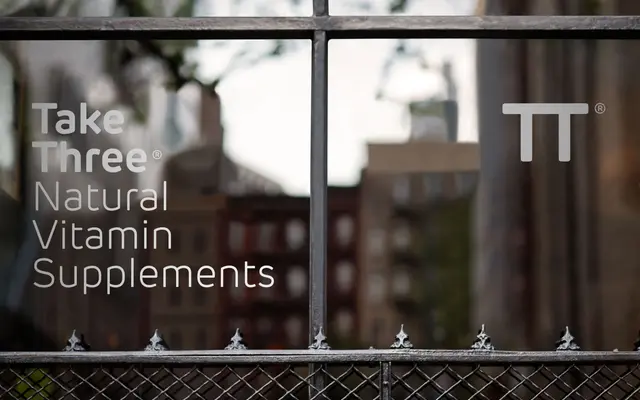
New Rubrik Edge
A seven-weight geometric sans from Newlyn's Rubrik family, distinguished by sharper edge detailing across upright and italic styles.
Part of Newlyn's broader Rubrik family, the Edge variant introduces more angular, defined forms across fourteen styles spanning ExtraLight to ExtraBold with matching italics. The range covers both text and display settings comfortably, with the weight spread making it adaptable for editorial and corporate applications. Clean construction and consistent geometry give it a neutral but considered character.
New Rubrik Edge is a geometric sans-serif with clean, structured forms typical of the grotesque-geometric tradition. The 'Edge' designation suggests sharper, more angular detailing within the Rubrik family lineage.